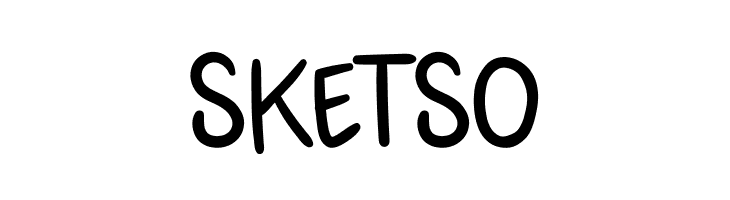
A bold, sketch-like font with rough, hand-drawn strokes and dynamic energy.
A dynamic, sketchy font with a hand-drawn, energetic style.
A playful, hand-drawn font with smooth, rounded edges and a casual style.